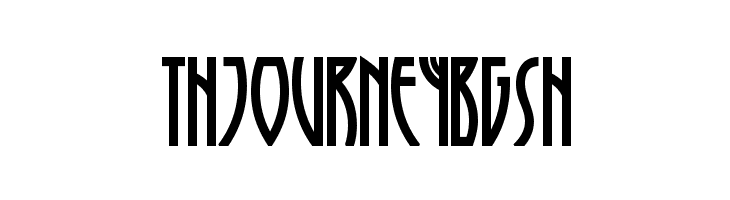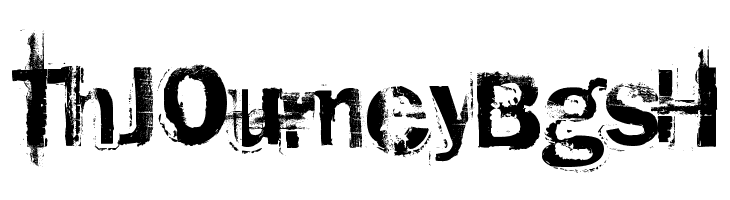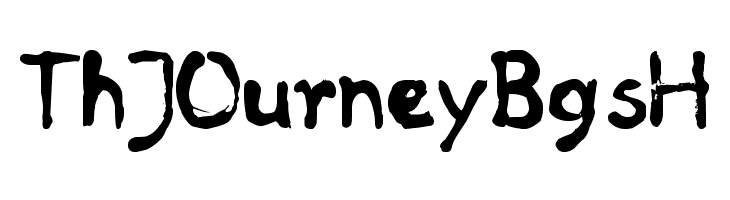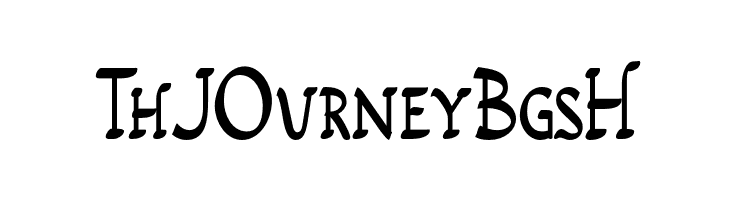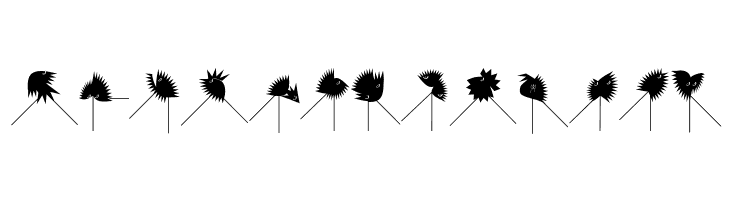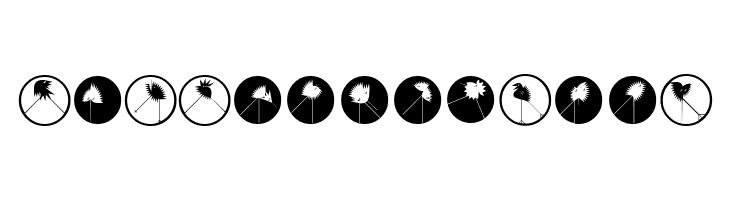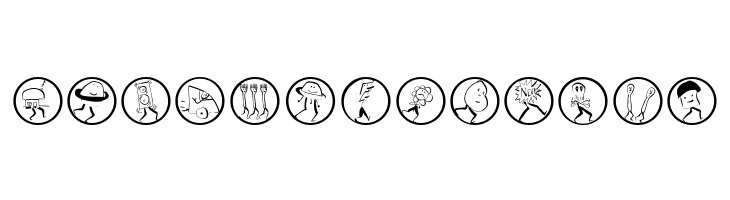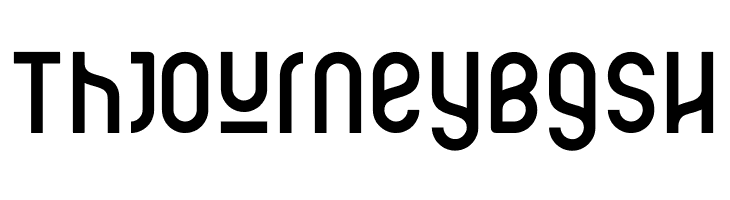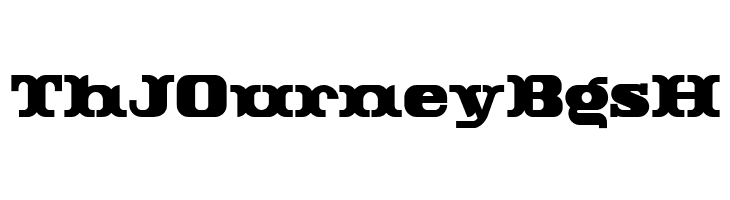
• RP Mola
• Ruler Modern
A modern, geometric font with bold, rounded characters.
• RunningBeings
Cartoonish, hand-drawn decorative font with playful character illustrations.
• RunningZigzags
An abstract, spiky, and dynamic decorative design.
• RunningZigzagsTwo
• Runy Tunes Revisited NF
A playful, tall, and narrow font with whimsical flair and bold design.
• RunyTunesRevisitedNF
A tall, narrow font with Art Deco influences and geometric flair.
• rusted plastic
A distressed, grunge-style font with a textured, weathered appearance.
• RusticusStd
A rustic, handcrafted font with a vintage flair.
• Rutin Tutin NF